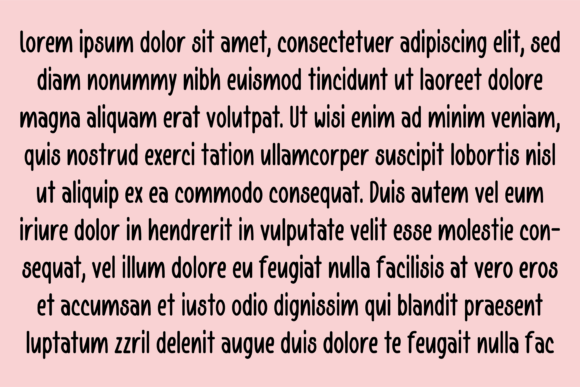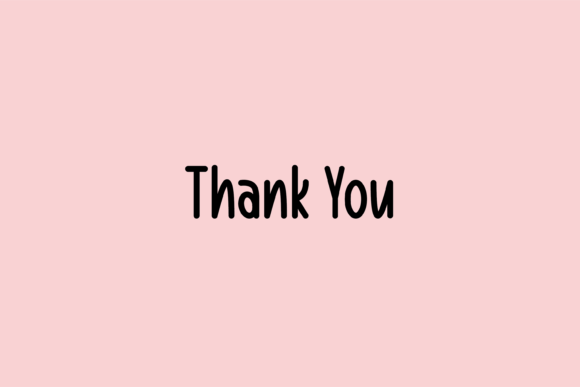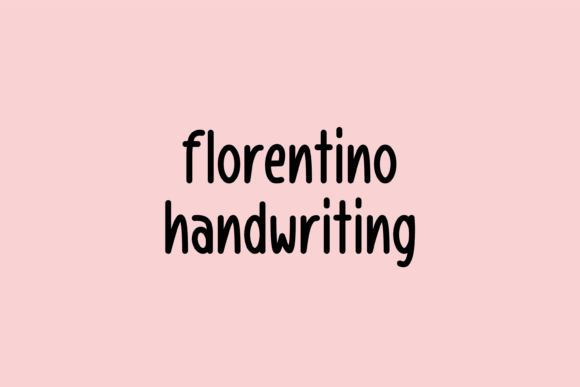
Introducing Florentino Font: A Simple yet Whimsical Handwritten Delight
Are you tired of using the same old fonts in your designs? Look no further! Florentino Font is here to add a touch of personality and whimsy to your projects. This simple and friendly handwritten font is perfect for designers and crafters looking to brighten up their designs and make them stand out.
The Characteristics of Florentino Font
Florentino Font is a beautifully crafted handwritten font that exudes a sense of friendliness and approachability. Its simple and clean lines make it easy to read, while its whimsical and quirky touches add a dash of personality. This font is perfect for designs that require a personal touch, such as:
- Logos: Create a unique and memorable brand identity with Florentino Font.
- Wedding Invitations: Add a touch of romance and whimsy to your wedding stationery.
- Quotes: Make your inspirational quotes stand out with a beautiful and eye-catching font.
- Advertisements: Grab attention with a friendly and approachable font that’s sure to delight.
- Print: Use Florentino Font in your print designs, such as brochures, flyers, and posters.
- Magazines: Add a personal touch to your magazine designs with this beautiful handwritten font.
Why Choose Florentino Font?
So, what sets Florentino Font apart from other fonts? Here are just a few reasons why designers and crafters love this font:
- Unique and Quirky: Florentino Font has a unique and quirky personality that will add a touch of whimsy to your designs.
- Easy to Read: Despite its playful nature, Florentino Font is easy to read and understand, making it perfect for designs that require a clear message.
- Versatile: This font is versatile and can be used in a variety of designs, from logos and wedding invitations to quotes and advertisements.
- High-Quality: Florentino Font is a high-quality font that’s designed to deliver exceptional results in your designs.
How to Use Florentino Font in Your Designs
Using Florentino Font in your designs is easy! Here are a few tips to get you started:
- Pair it with Other Fonts: Florentino Font pairs well with other fonts, so feel free to experiment with different combinations to find the perfect look for your design.
- Experiment with Colors: This font looks great in a variety of colors, so don’t be afraid to try out different color schemes to find the one that works best for your design.
- Use it in Different Sizes: Florentino Font is clear and easy to read, even at small sizes, making it perfect for designs that require a range of font sizes.
Whether you’re a seasoned designer or a crafty DIY enthusiast, Florentino Font is the perfect addition to your design toolkit. Its friendly and approachable nature makes it perfect for a wide range of designs, from logos and wedding invitations to quotes and advertisements. So go ahead, get creative, and see what amazing designs you can create with Florentino Font!